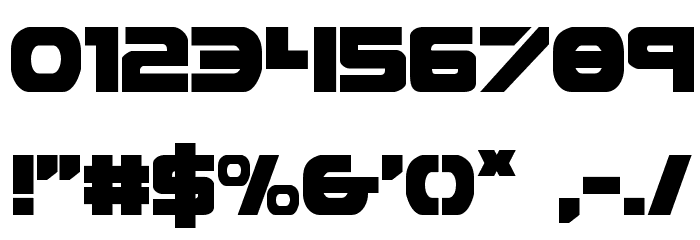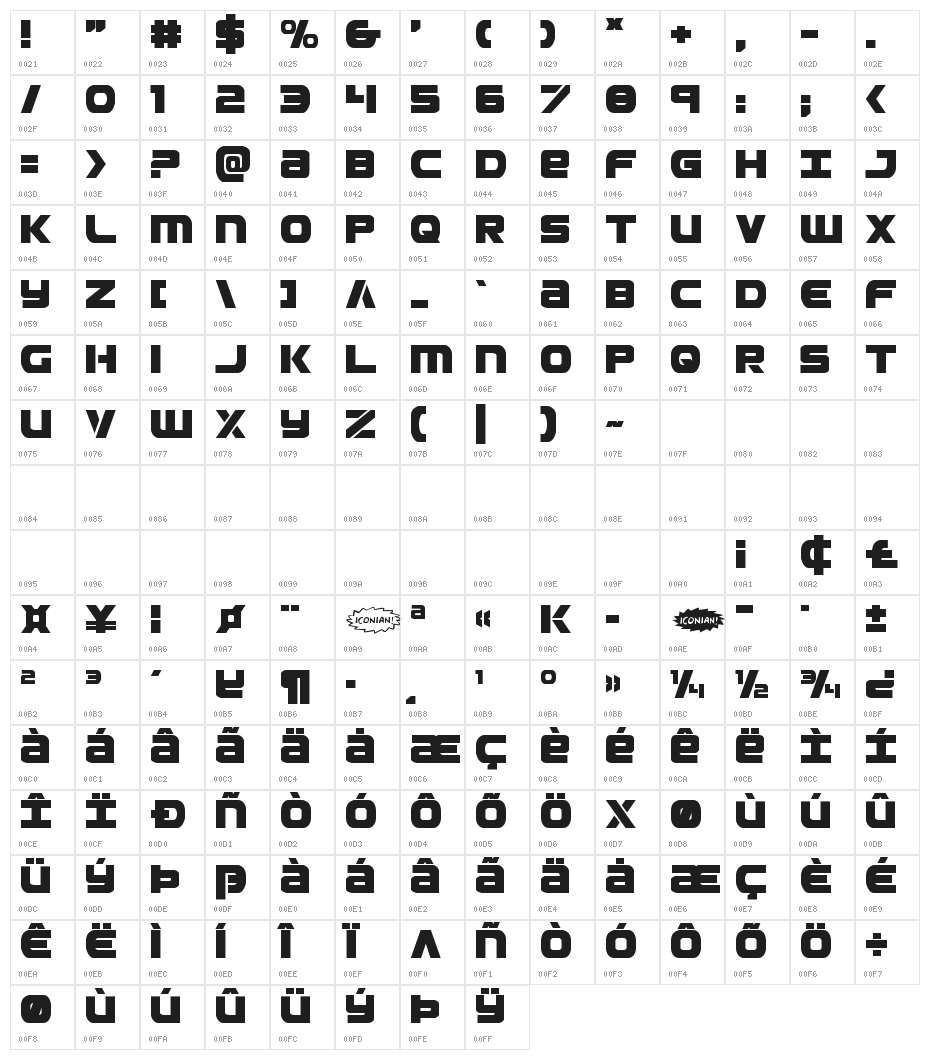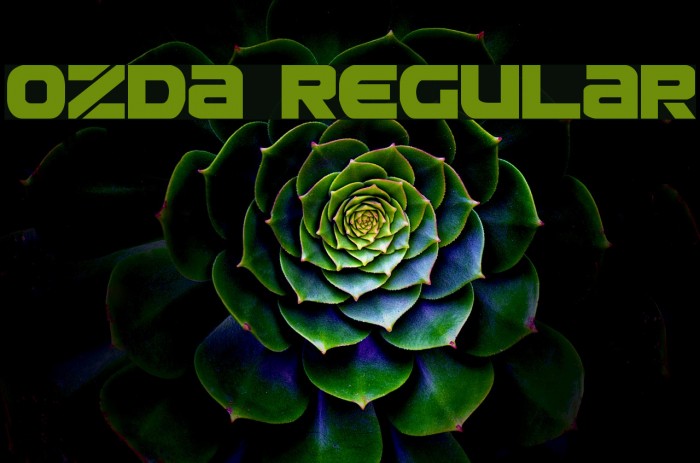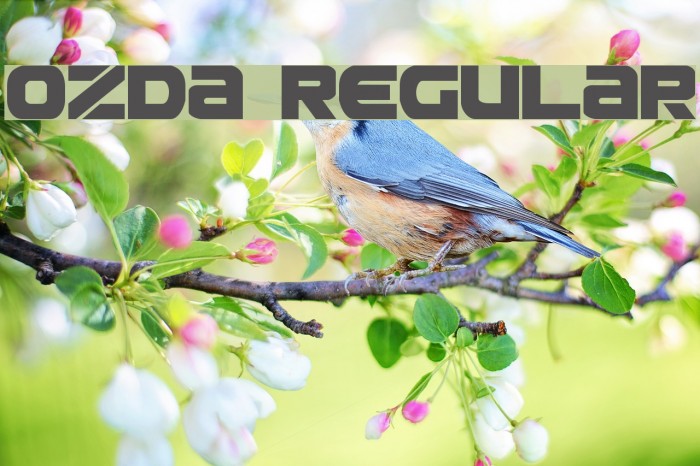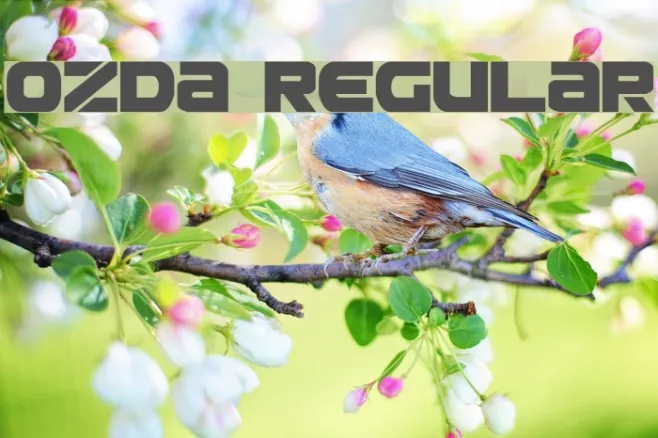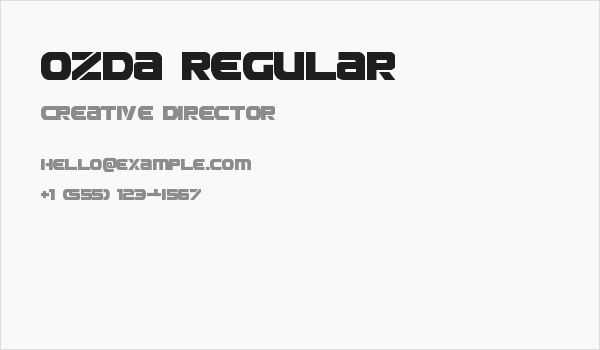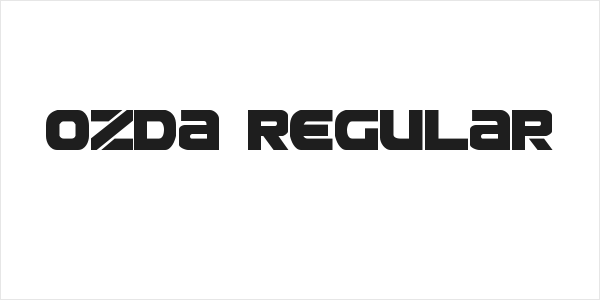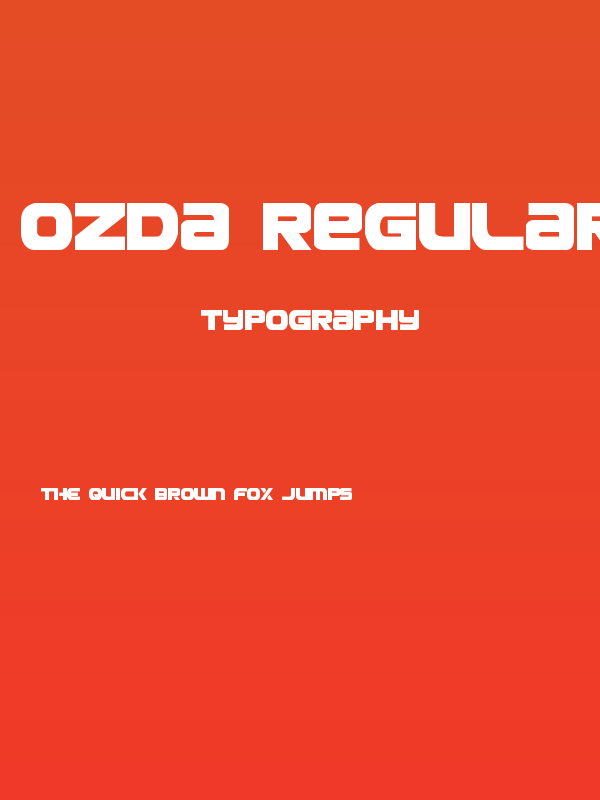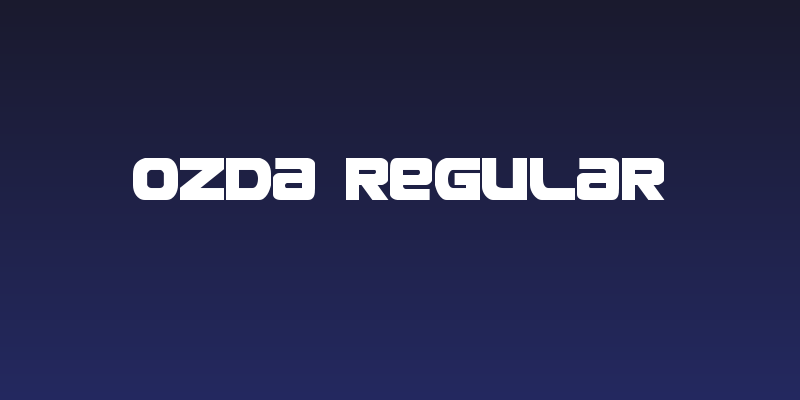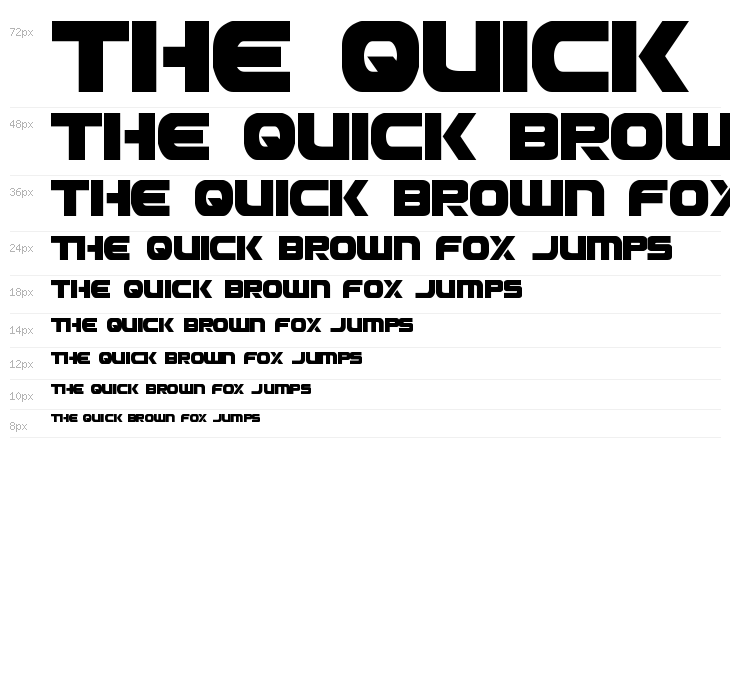
Ozda Regular Font
Ozda Regular Description
This font features a bold and futuristic design with strong geometric shapes and a distinct blocky appearance. The characters are uniformly wide, creating a consistent and cohesive look across all letters and numbers. The uppercase and lowercase letters share similar widths, enhancing the font's uniformity. The numerals are designed to match the boldness of the alphabet, ensuring readability and visual impact. Special characters are crafted with the same attention to detail, maintaining the font's overall aesthetic. This font is ideal for projects that require a modern and assertive style.
| Proposed Projects | Ideal for branding, headlines, posters, and digital interfaces that require a modern and impactful look. |